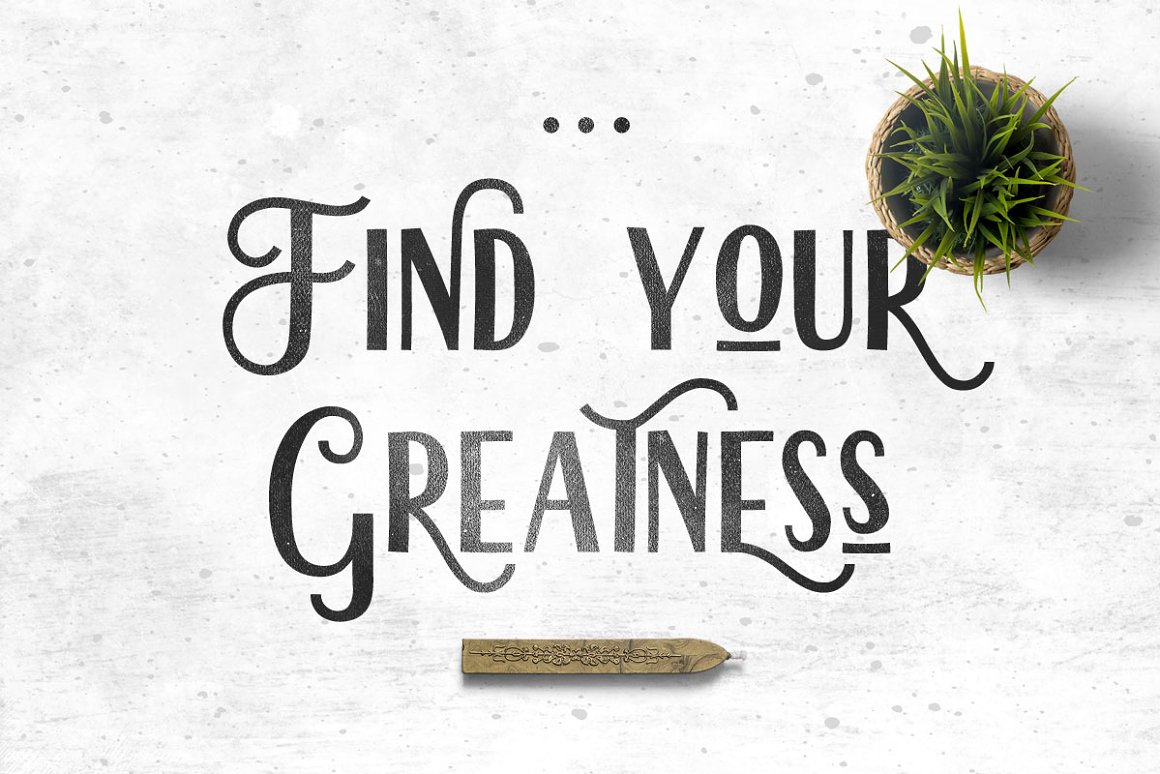
Herlock Display Font
Herlock is modern display font, every single letters have been carefully crafted to make your text looks beautiful. With modern script style this font will perfect for many different project ex: quotes, blog header, poster, wedding, branding, logo, fashion, apparel, letter, invitation, stationery, etc.
| Classification: | Blackletter / Gothic Fonts, Retro / Vintage Fonts, Sans Serif Fonts |